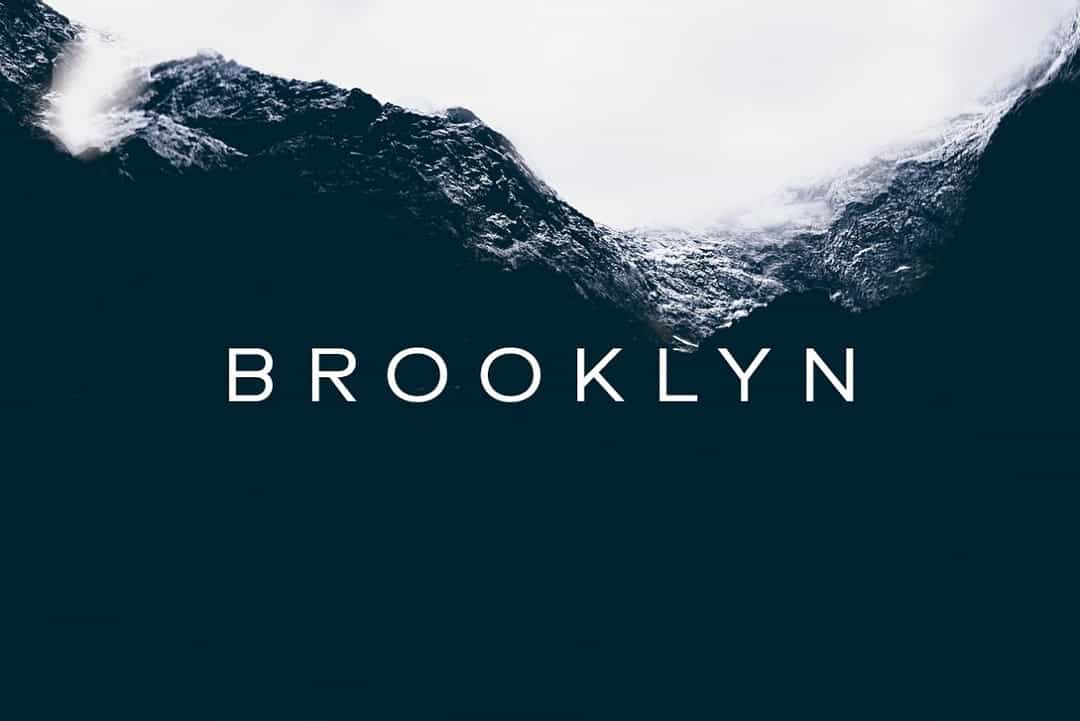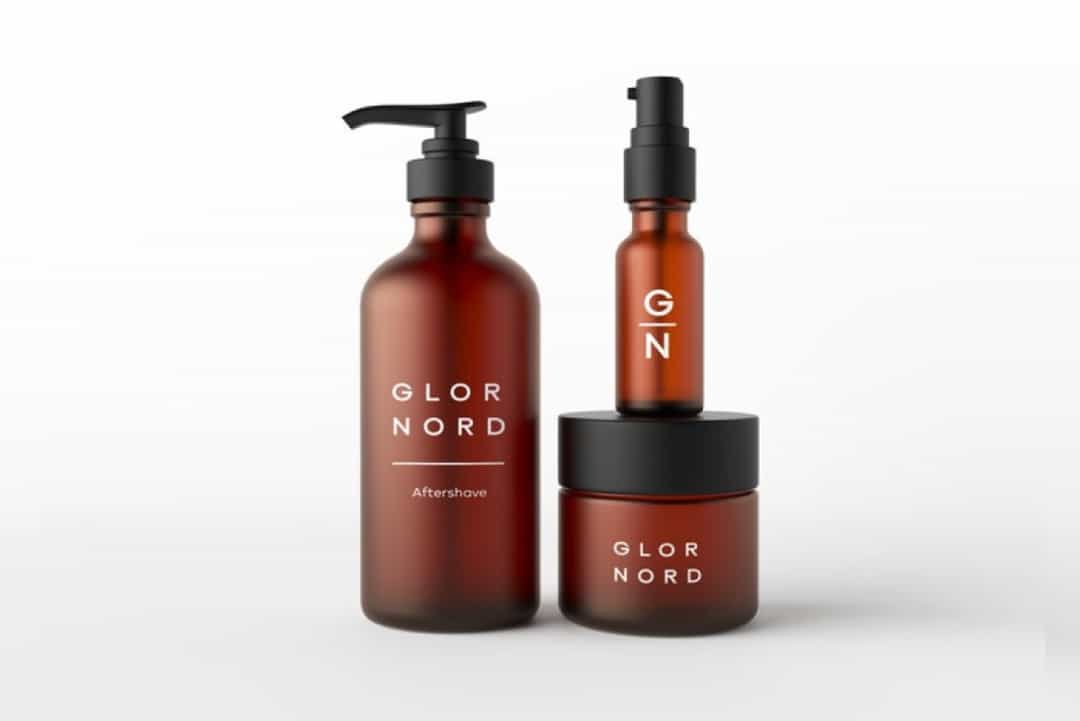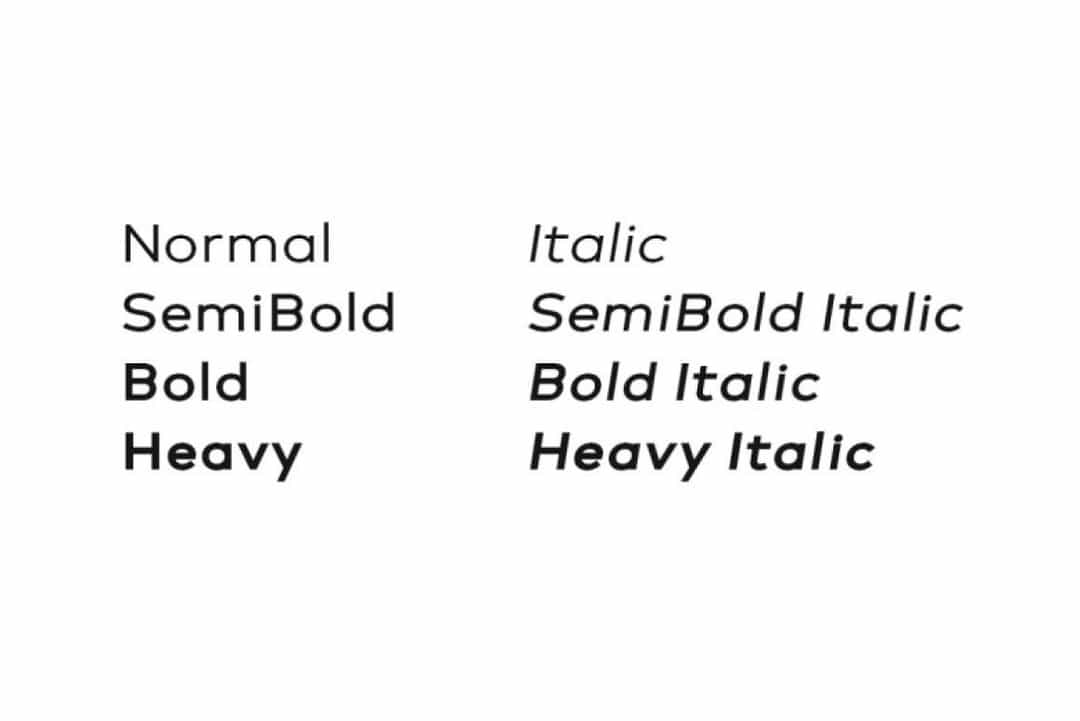
Brooklyn can be described as an elegant and simple sans serif Font family that easily adapts to various projects – so be sure to add it into your concepts and watch as they flourish!